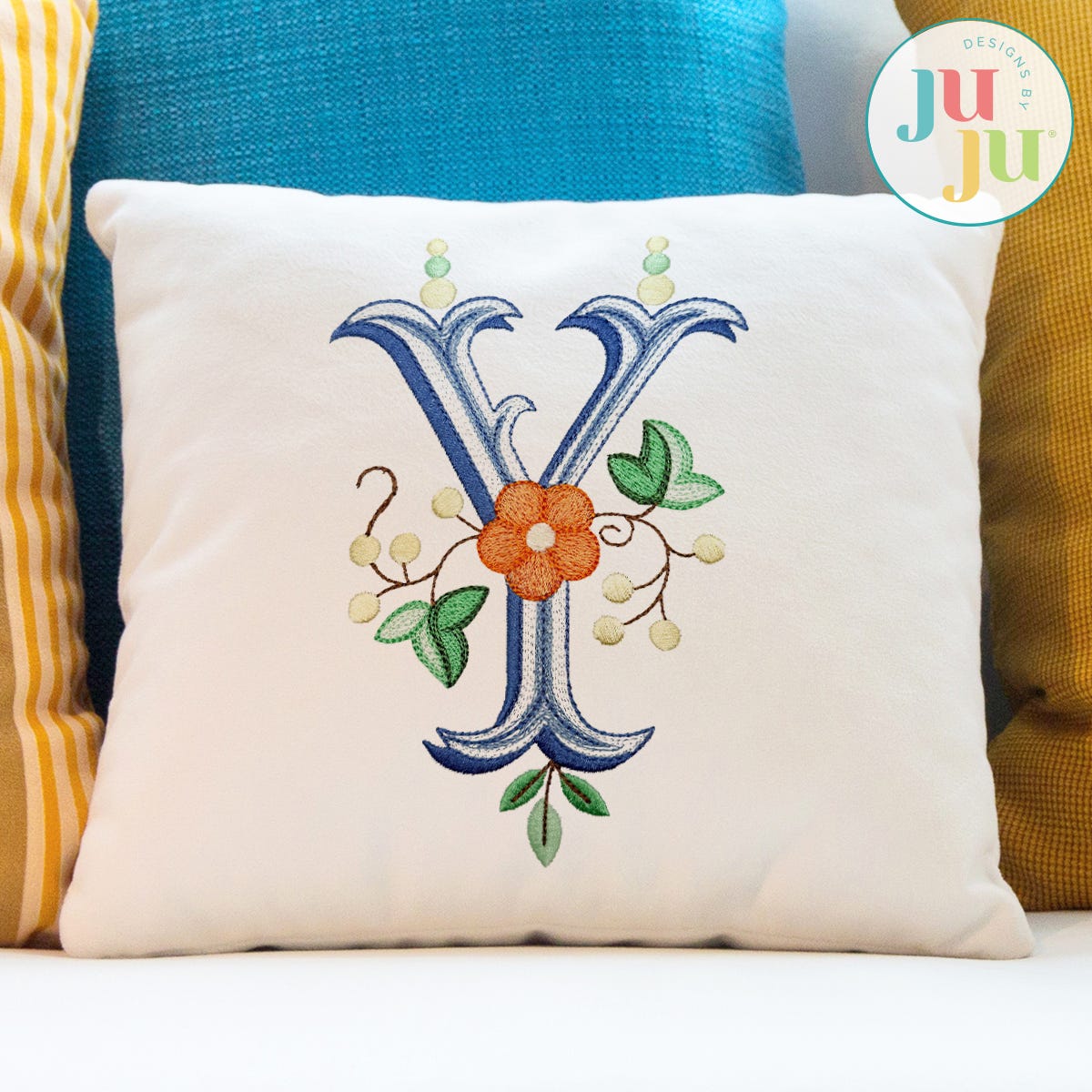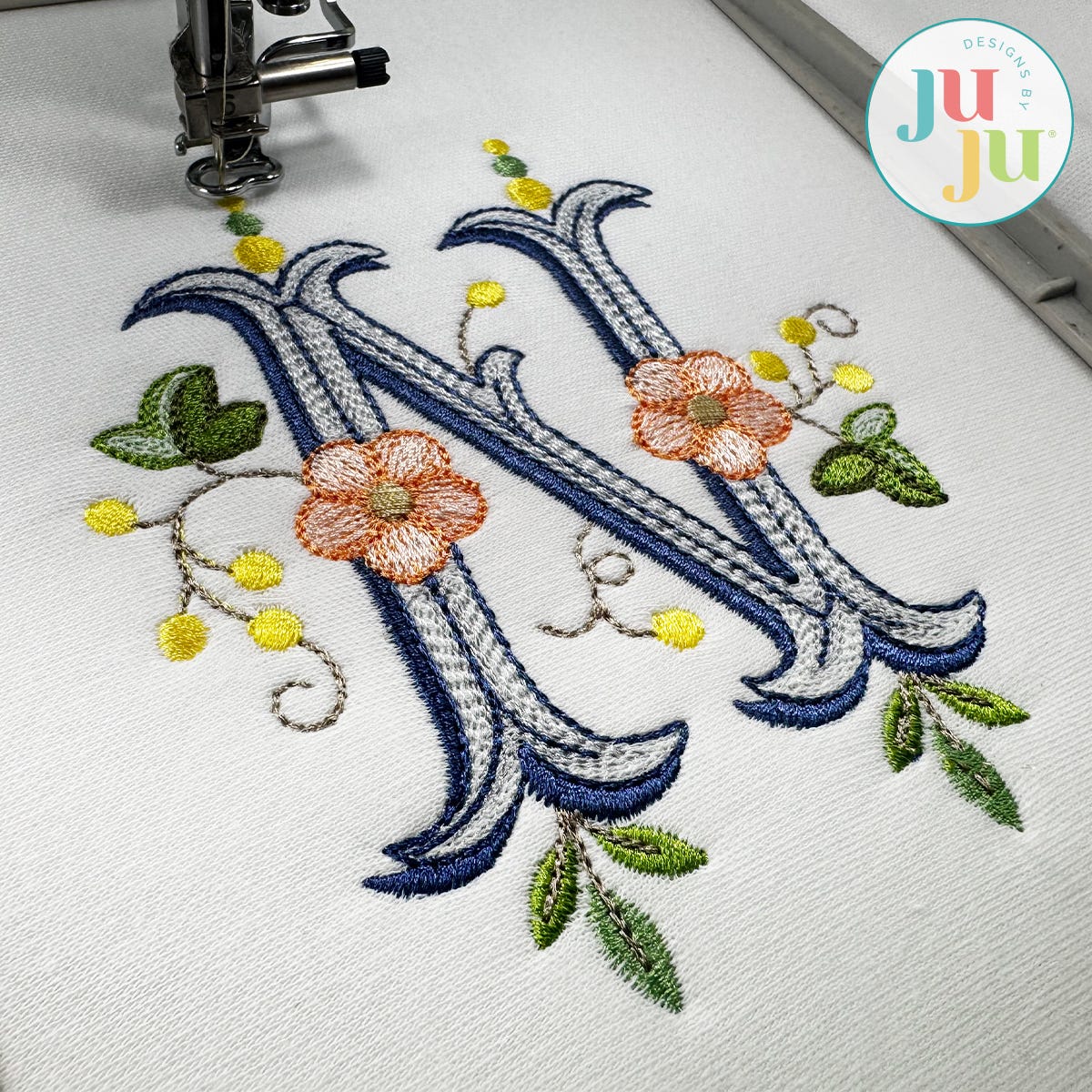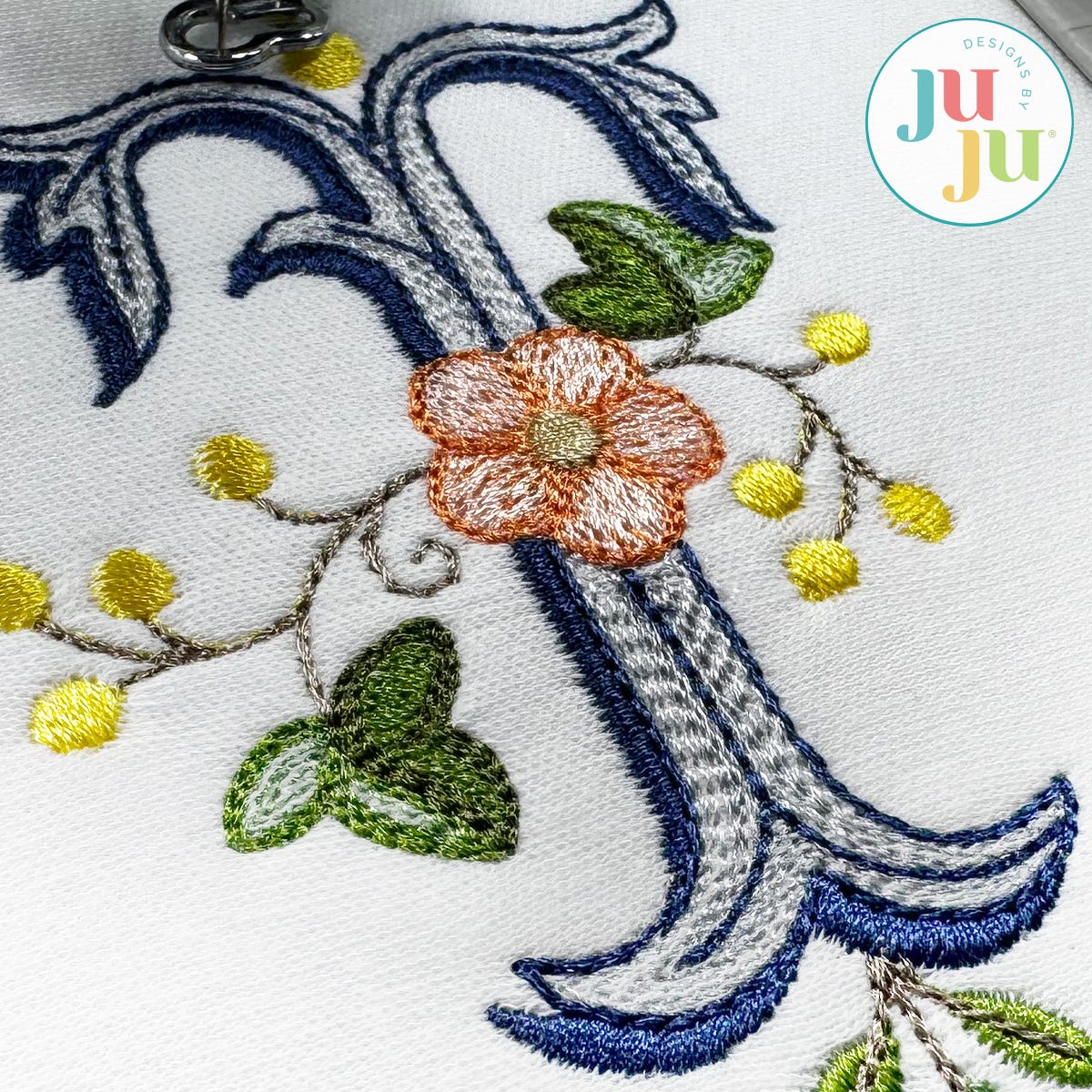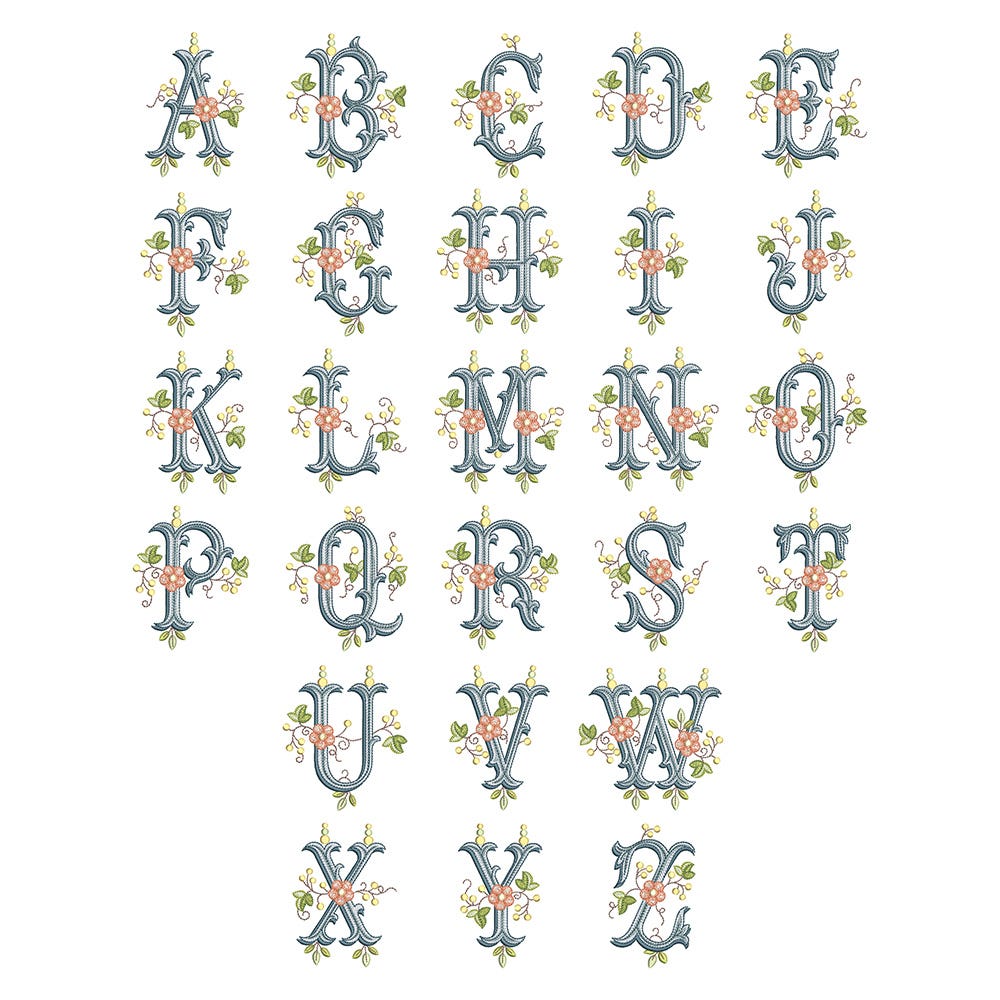
Add an ornate, graceful touch to your stitching with our Cleopatra Monogram embroidery design set! This elegant embroidery-only alphabet features decorative serif-style letters accented with delicate florals, leafy vines, and scrolling details for a beautiful heirloom-inspired look.
These designs feature multiple color layers that work together to create beautiful shading, dimension, and drop-shadow effects. Refer to the included color charts for details.